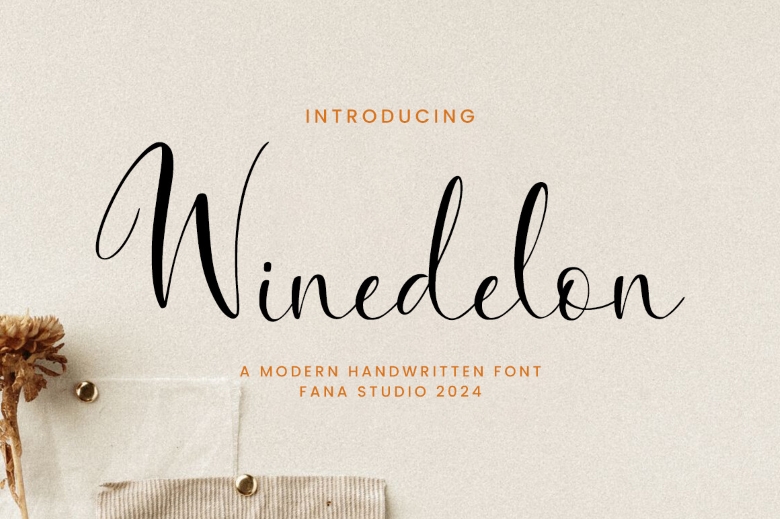
Winedelon Font
Let me present Winedelon Script, the new Font Style. Feel free to attach your name or identity to your latest art project as you give it an artistic taste from this attractive script font. The script is amazingly beautiful and can be used for a wide range of projects that include logos & branding, invitations, stationery, wedding designs, social media posts, advertisements, product packaging, product designs, labels, photography, watermark, special occasions, or just anything that requires the taste of handwriting.
Winedelon Handwritten Font